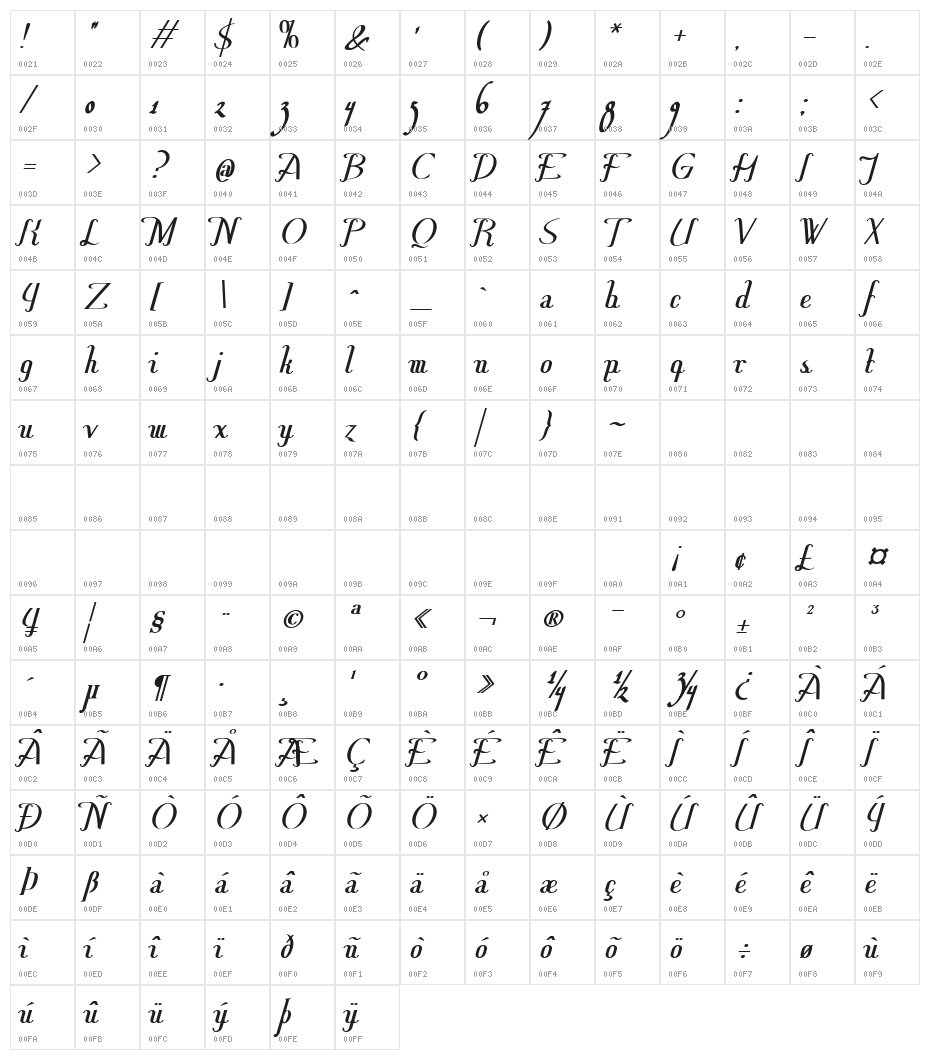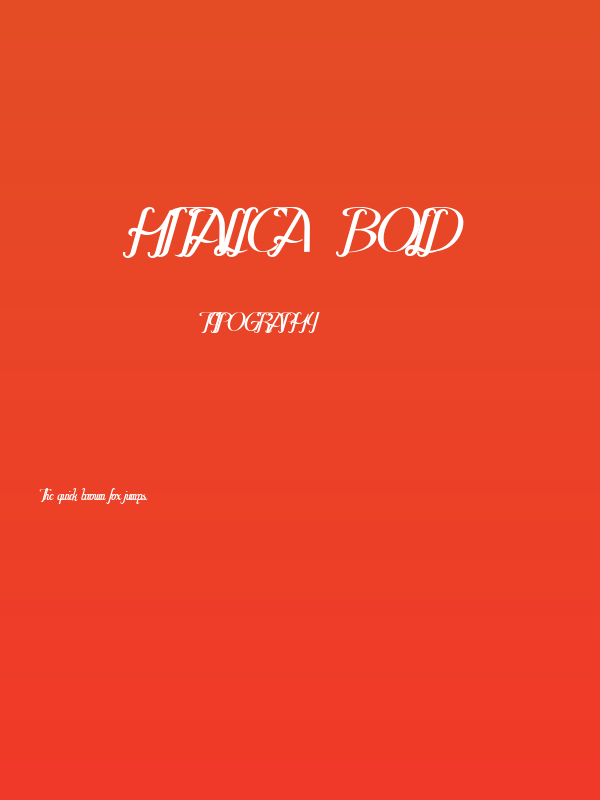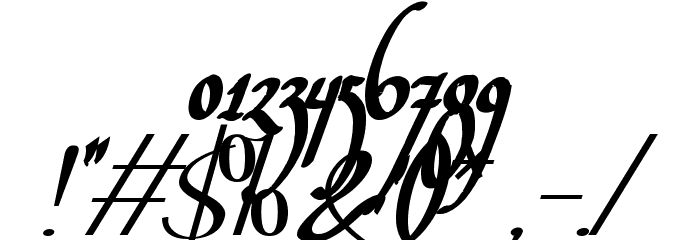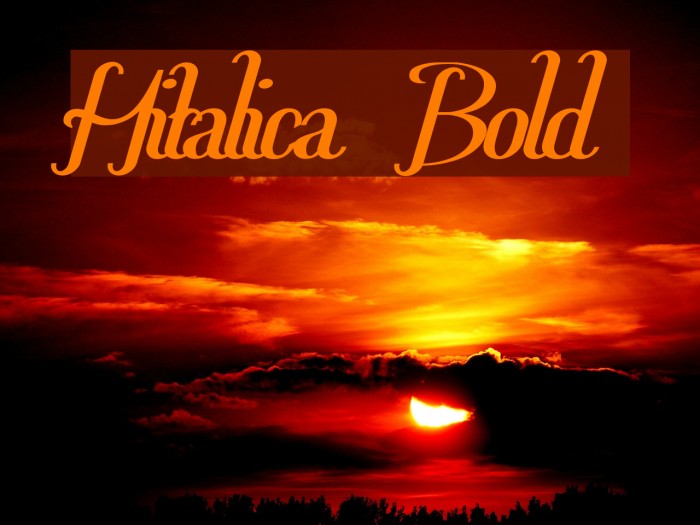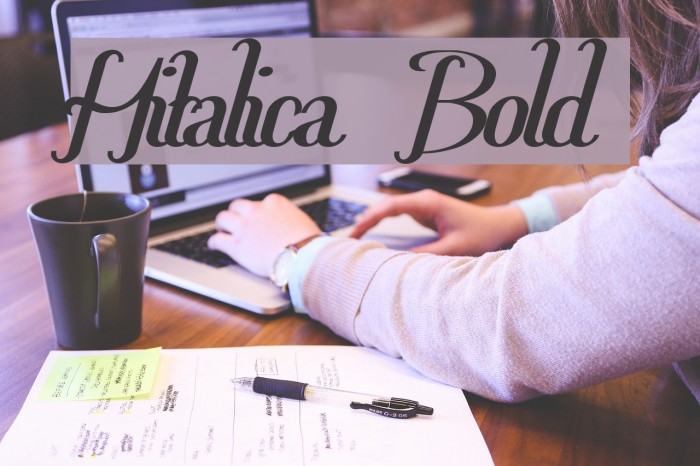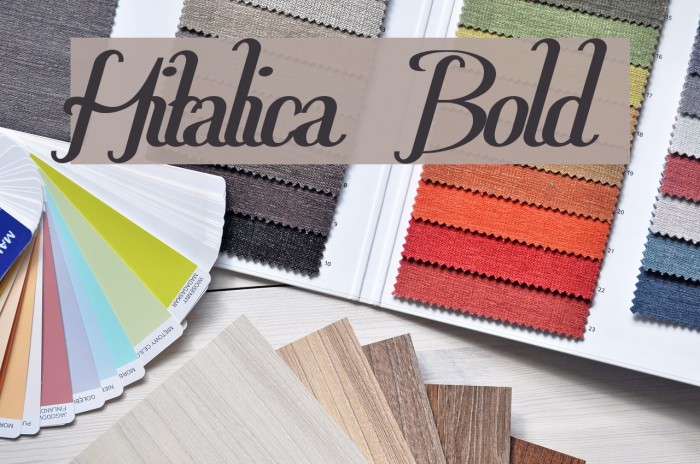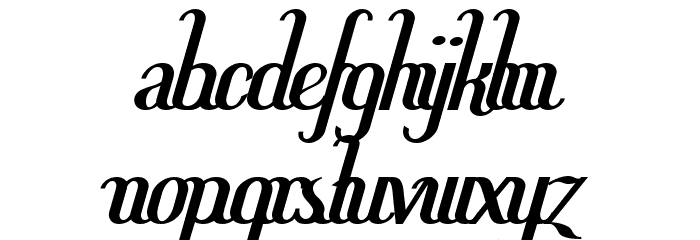
Hitalica Bold Font
Hitalica Bold Description
This font features an elegant and flowing script style with bold strokes, giving it a sophisticated and dynamic appearance. The uppercase letters are characterized by their sweeping curves and loops, while the lowercase letters maintain a consistent fluidity that complements the overall design. The numerals and special characters are crafted with the same attention to detail, ensuring a cohesive look across all elements. The font's bold weight enhances its presence, making it suitable for impactful designs. Its decorative nature is perfect for projects that require a touch of elegance and flair.
| Use Case | Logos, Headlines, Invitations |
| Proposed Projects | Ideal for wedding invitations, luxury branding, elegant signage, and decorative headlines. |